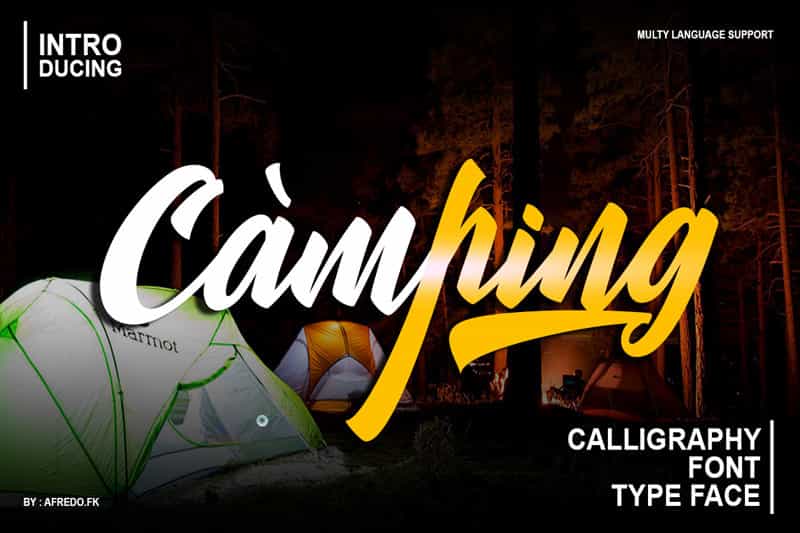
Camping has a new fresh & modern script with a handmade calligraphy style, decorative characters and a dancing baseline. Very stunning for invitation like greeting cards, branding, business cards, sayings, posters, logo and a lot more!